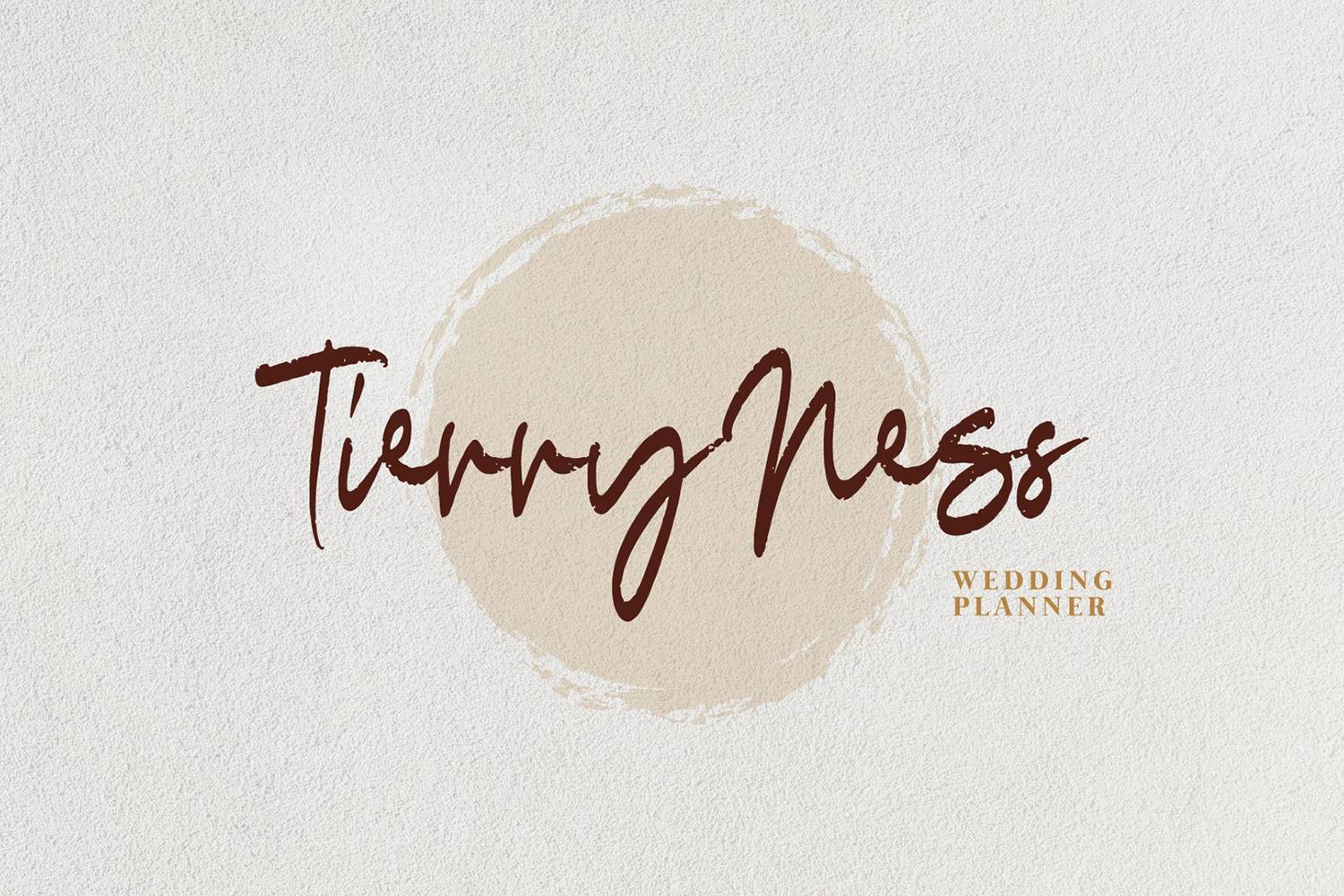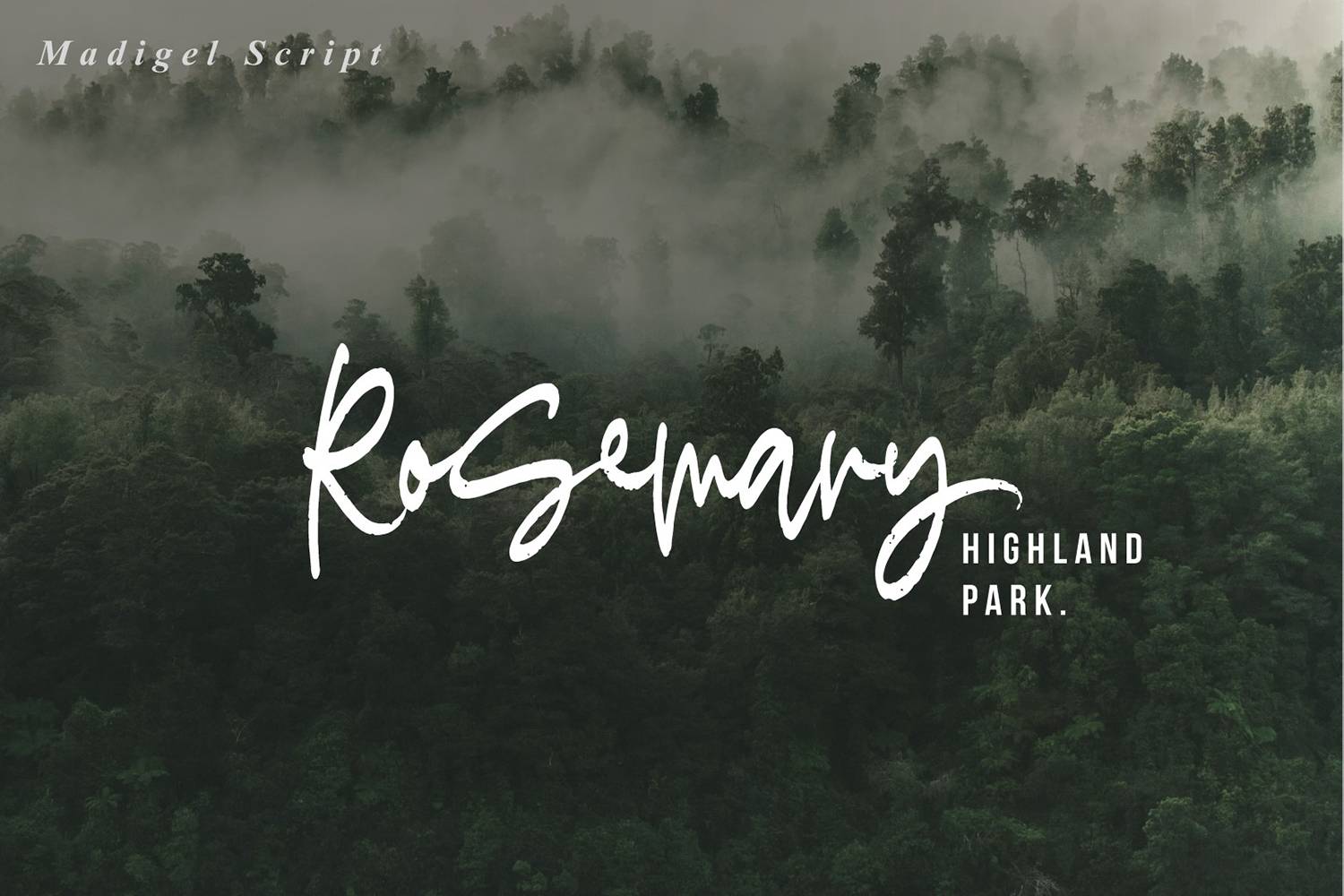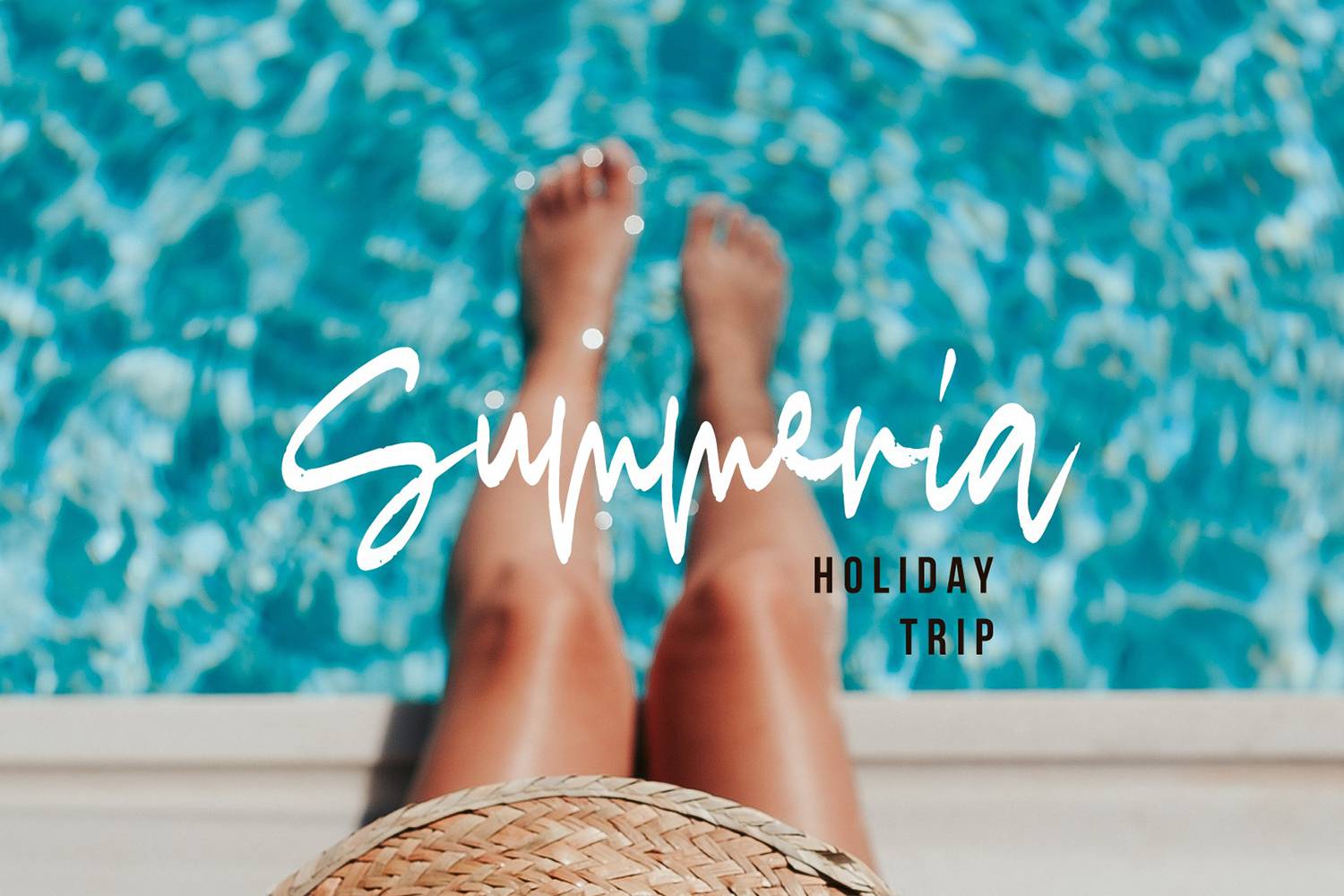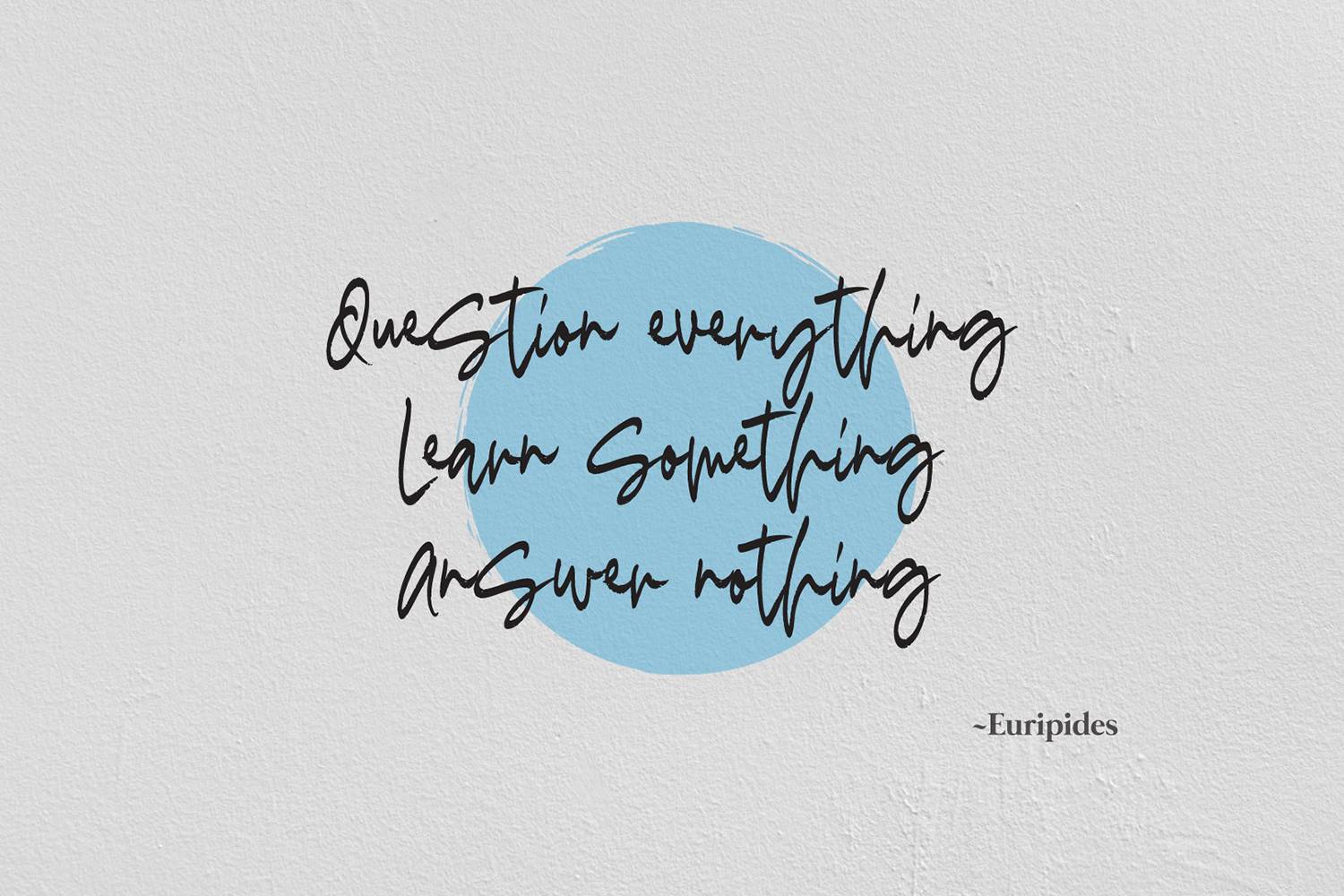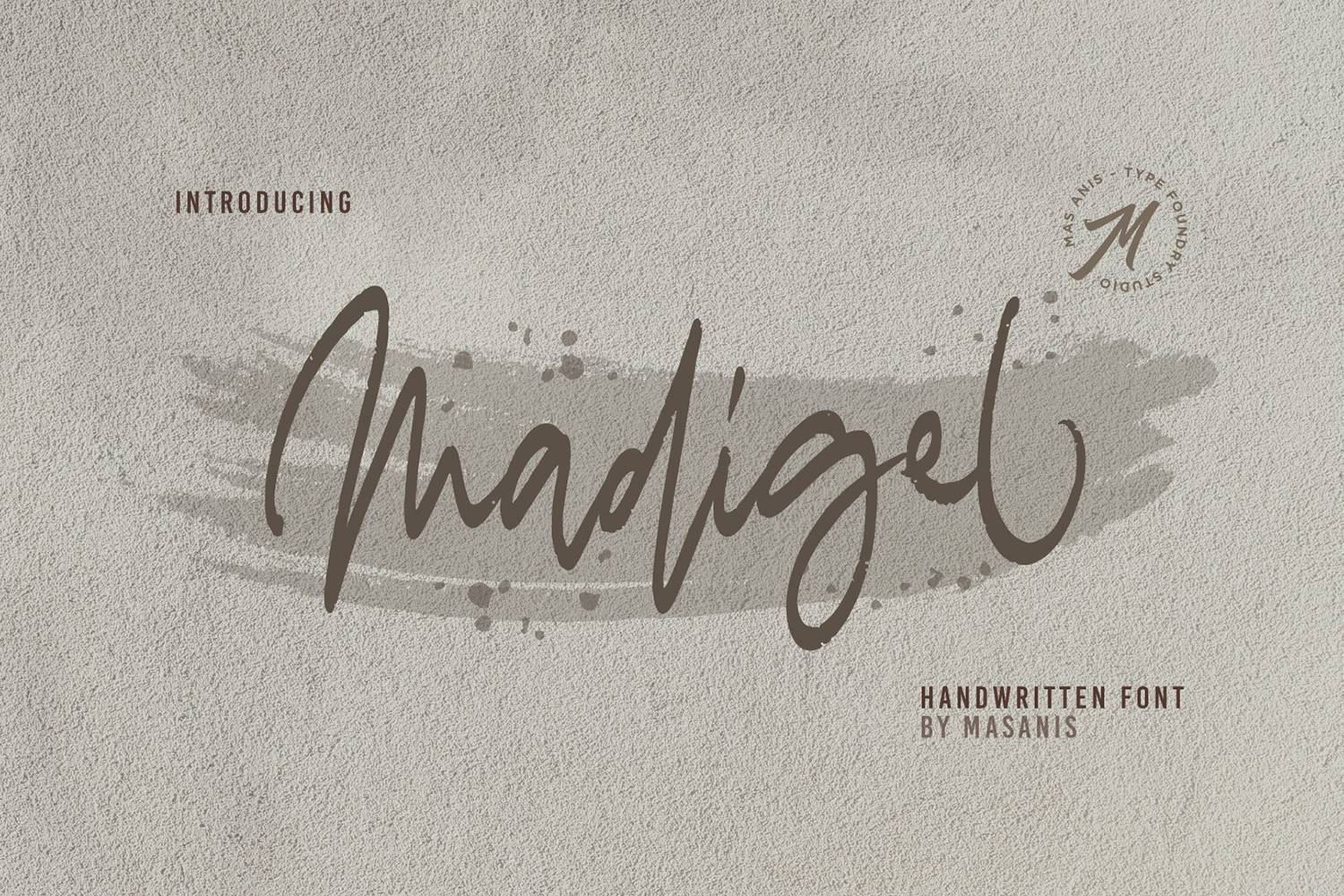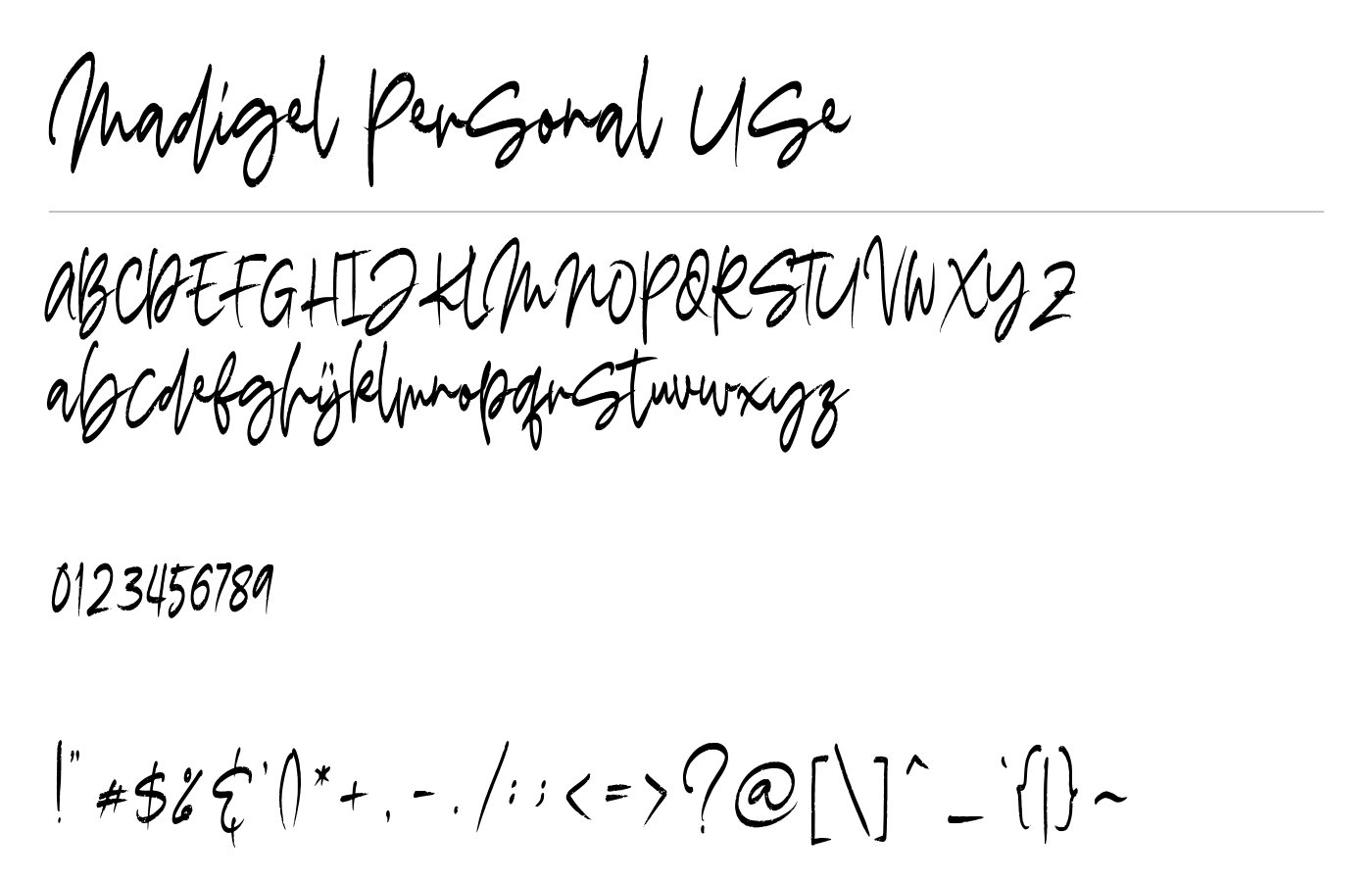
Madigel is a lively and casual handwritten script font with a natural, brush-like texture that gives a personal and artistic feel. Its tall, narrow letterforms and slightly irregular strokes create an energetic and authentic vibe ideal for creative projects, branding, and informal design uses. This font works especially well for logos, invitations, and social media graphics where a friendly yet stylish handwritten touch is desired.
Madigel Font
About Madigel Font
| Font family | Madigel Font |
| Release date | 2019-07-12 |
| Designer | Muhammad Naufal Anis |